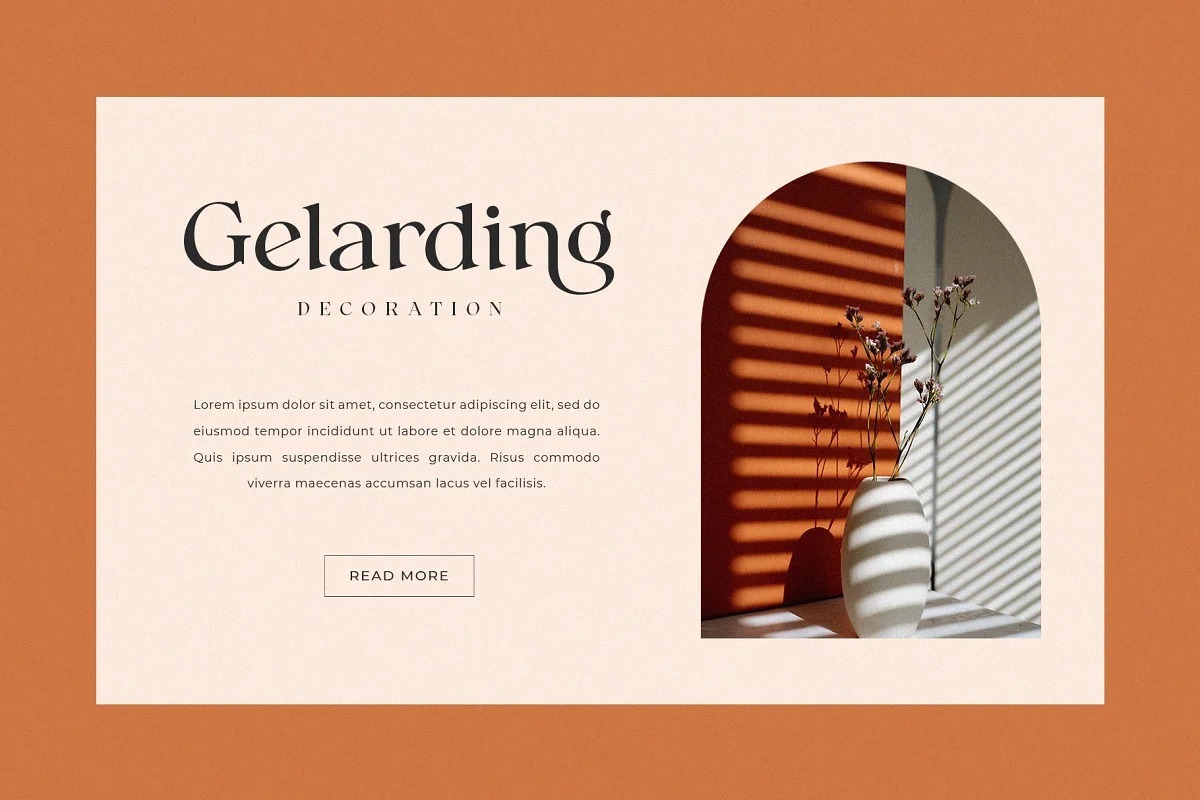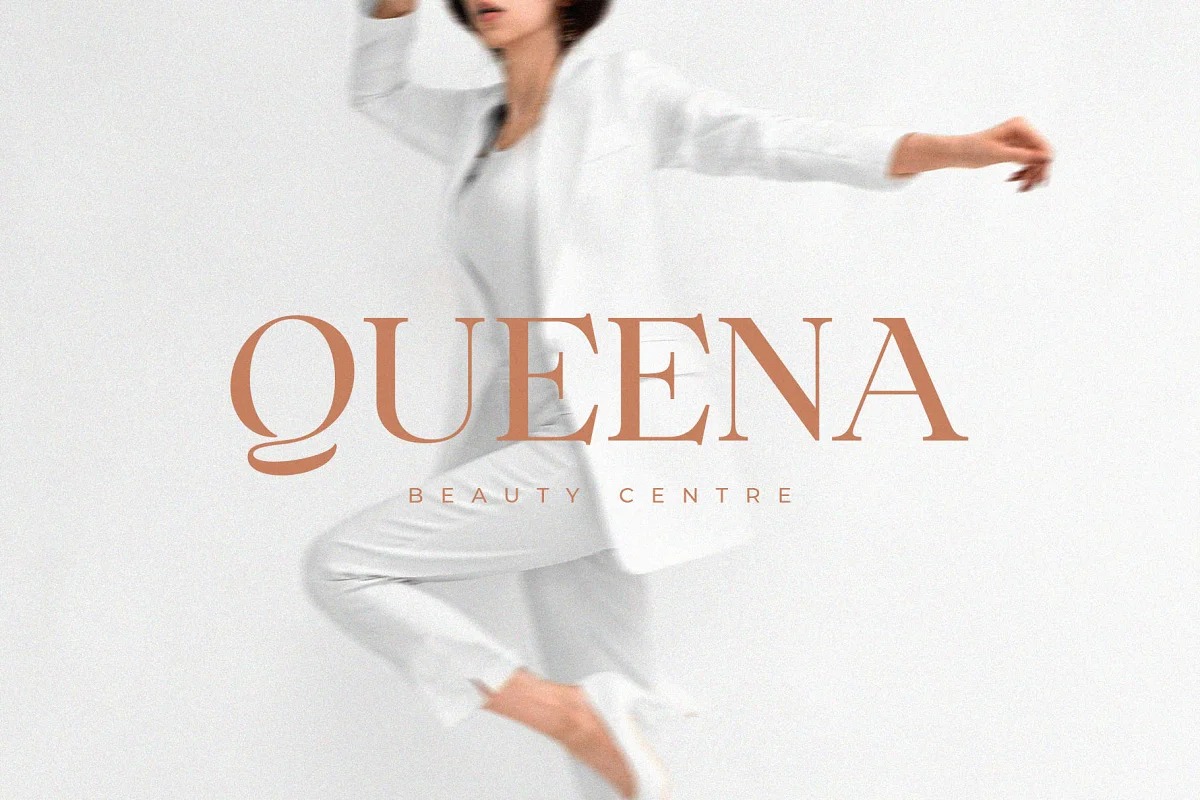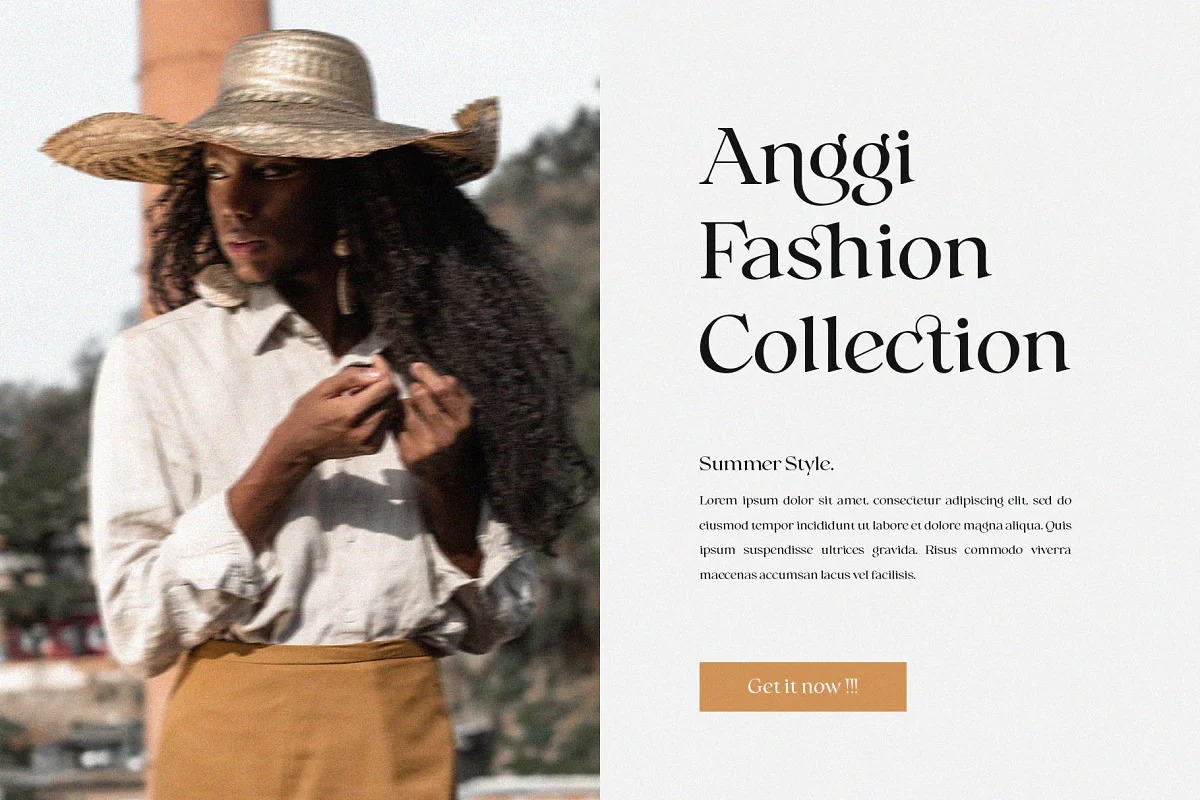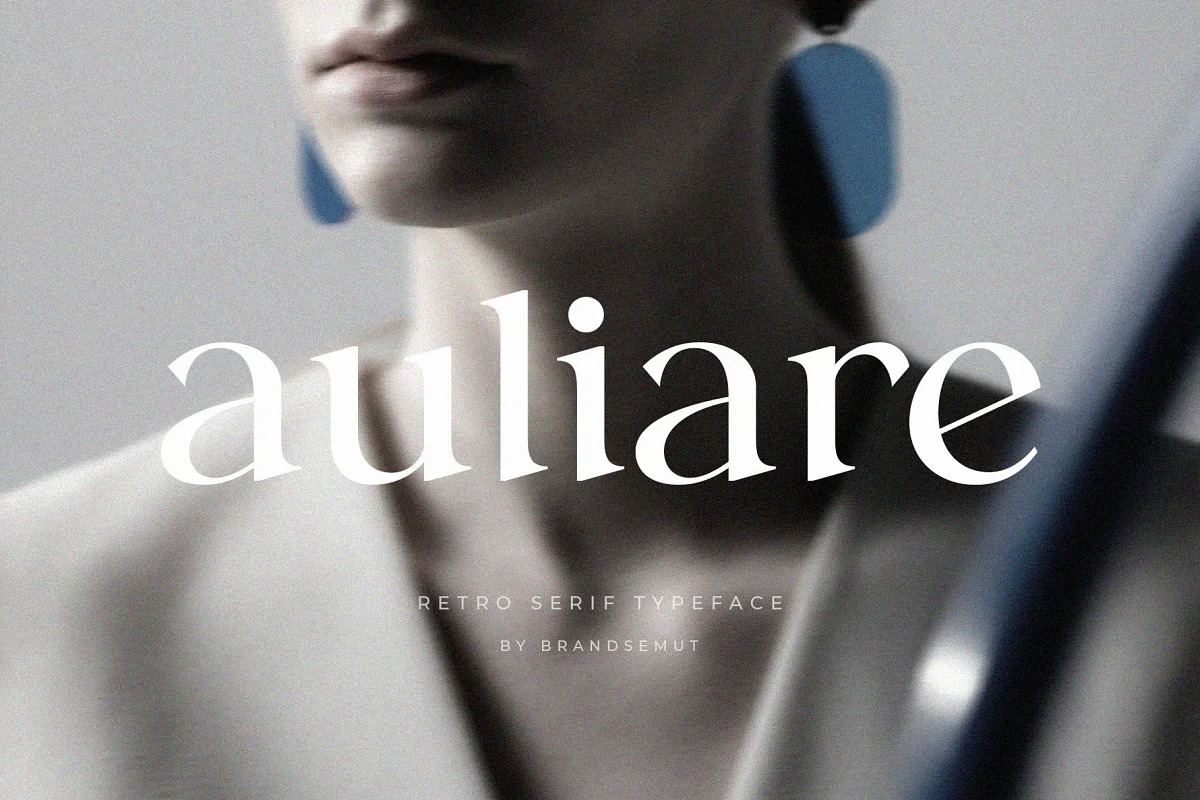
Auliare Serif Font
If you are needing a touch of casual modern serif for your designs, this font was created for you! Auliare is a retro and classics typeface, best used as a display for headings, logos, branding, magazines, product packaging and invitations. Auliare come with clean lines and smooth curves give any project an extra touch of class.